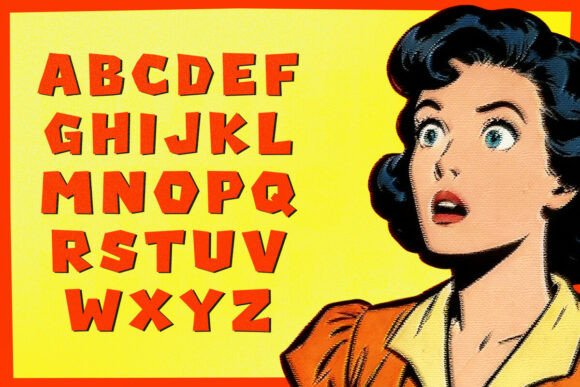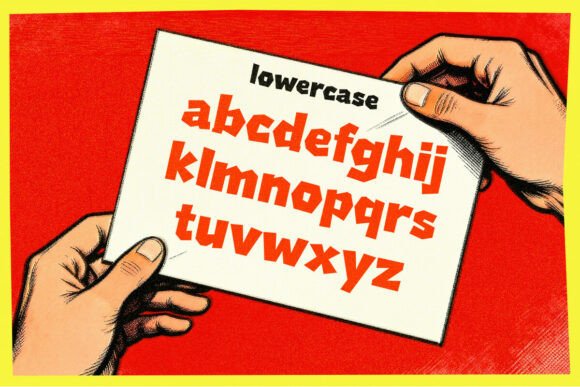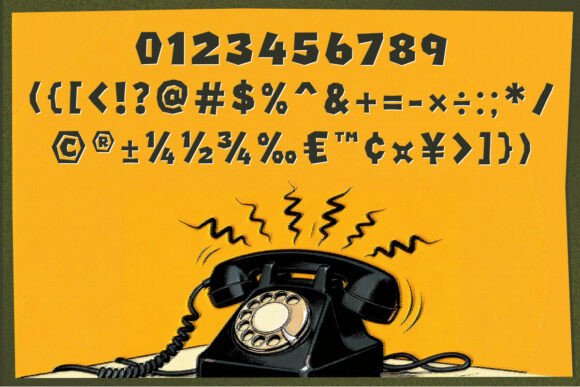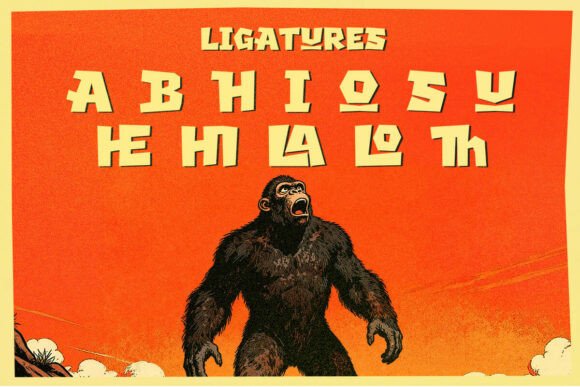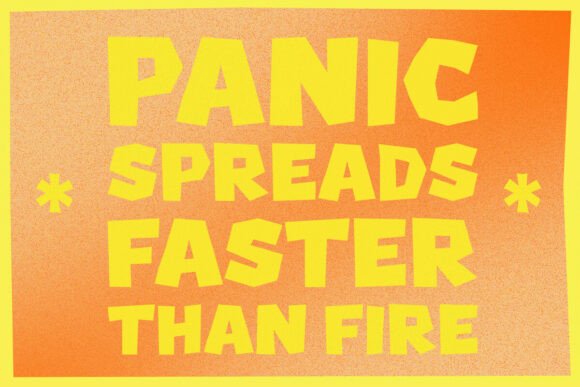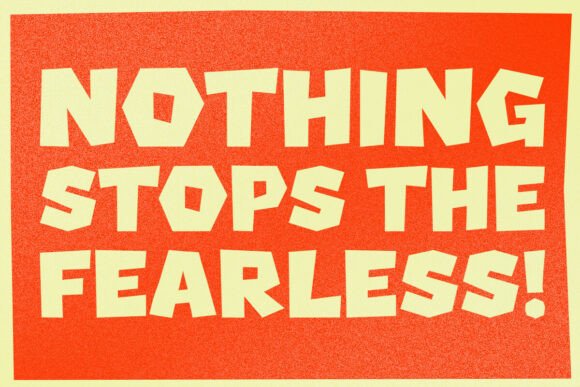
Introduction to Land of Luck Font
Do you ever find yourself staring at a blank design canvas, struggling to come up with the perfect font to capture the playful and energetic vibe of your creative project? For many designers, this is a common conundrum. But what if you had access to a font that could instantly elevate your designs and leave a lasting impression on your audience?
Enter the Land of Luck Font, a modern comic display font that’s designed to bring joy, playfulness, and bold personality into your designs. With its chunky shapes, smooth curves, and friendly cartoon-inspired style, this font is the perfect addition to any design resource. Whether you’re working on kids’ designs, comics, posters, branding, or social media content, the Land of Luck Font is sure to deliver a lively look that instantly grabs attention.
Key Features of Land of Luck Font
- High-quality design resource ideal for creative projects, offering a unique and captivating aesthetic.
- Designed with precision and attention to detail, featuring crisp and clear typography at 300 DPI resolution.
- Perfect for use in digital design, print materials, and other creative applications where a touch of luck and fortune is desired.
- Unique characteristics include a custom-designed font with a playful, whimsical feel, making it a standout design resource.
Honest Review: Land of Luck Font
What works well: ✨ The Land of Luck Font offers a unique and quirky aesthetic that adds a lot of personality to my designs. The font is highly customizable, allowing me to adjust the color, size, and style to fit my project’s needs.
- High-quality vector graphics that ensure crisp and clear text.
- A wide range of applications, from digital to print media.
What doesn’t work so well: ⚠️ While the font is free to download, it’s not without its limitations. The font family is relatively small, and it may not be suitable for large-scale projects that require a wide range of font styles.
Overall, I’m impressed with the Land of Luck Font. It’s a valuable design resource that adds a touch of whimsy to my creative projects. If you’re looking for a unique font to spice up your designs, I’d definitely recommend giving it a try.
Common Use Cases for Land of Luck Font